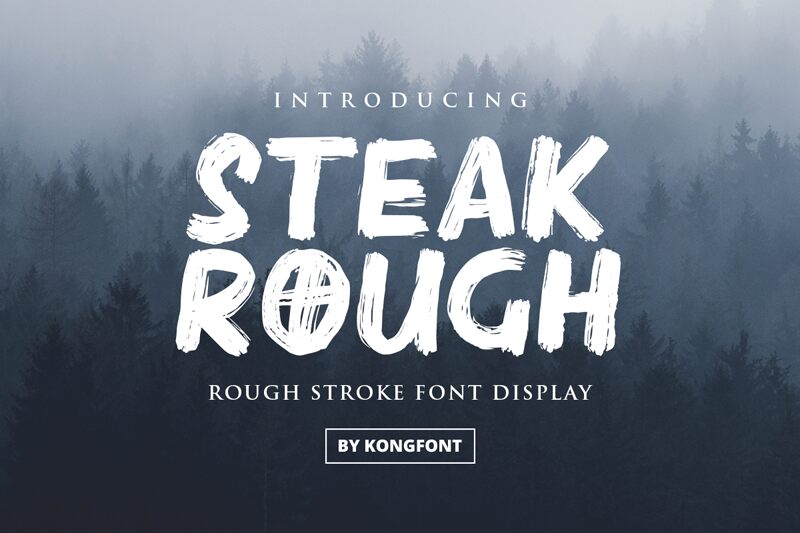
Steak Rough
Introducing Steak Rough - a bold, rough brush font designed by Kong Font. This font adds a raw, edgy touch to any project and is perfect for titles, logos and posters that require an eye-catching statement.